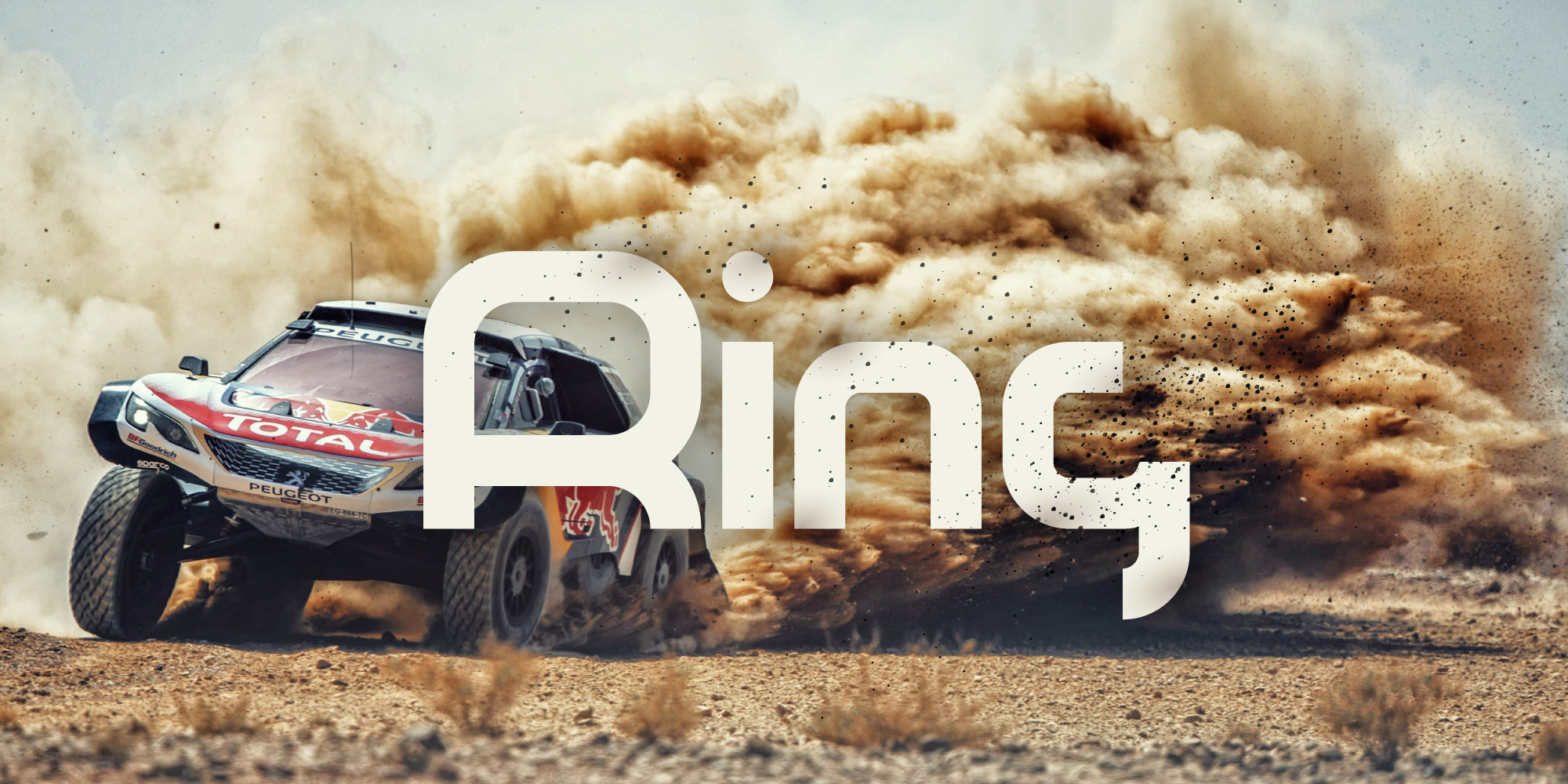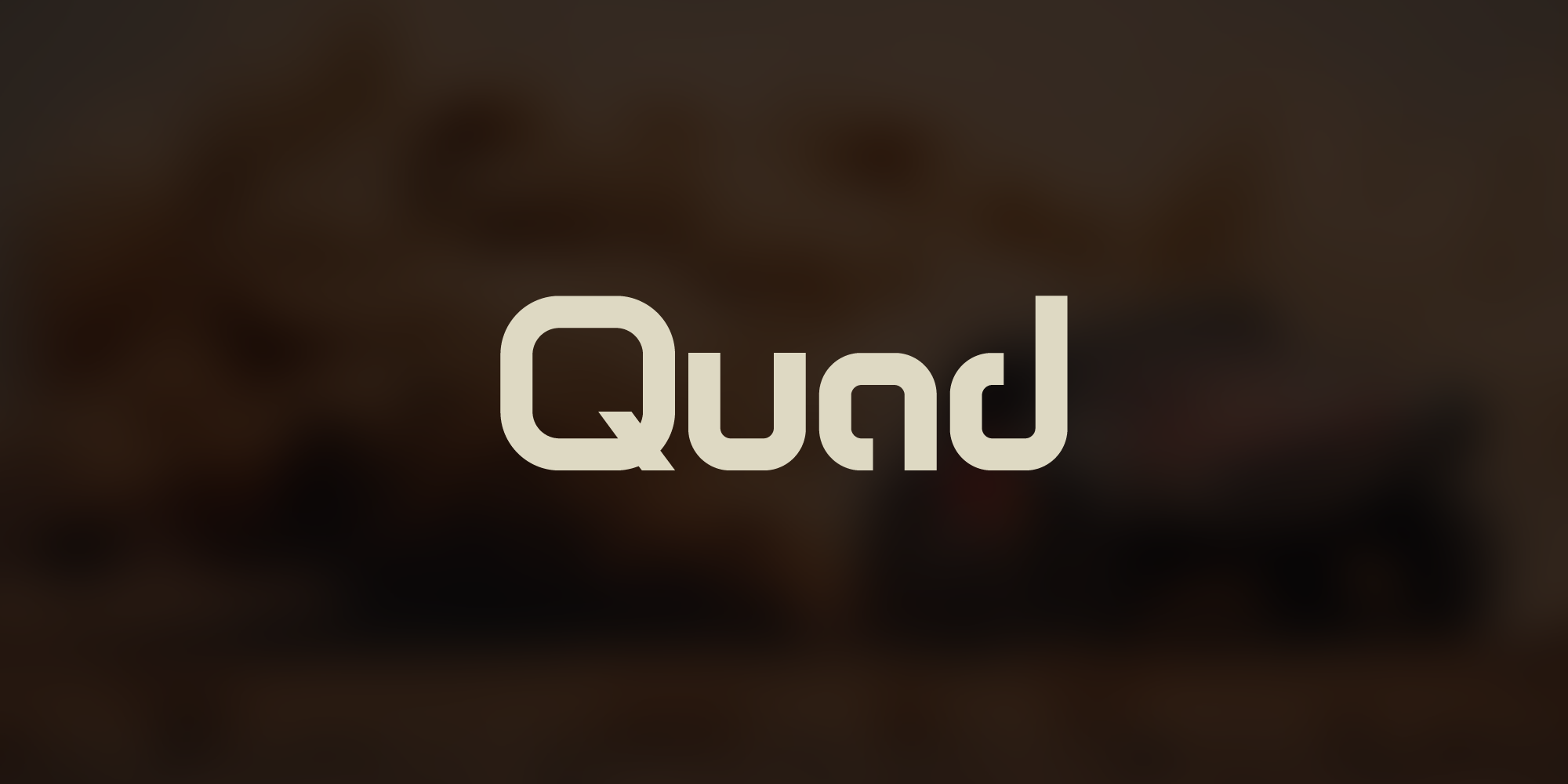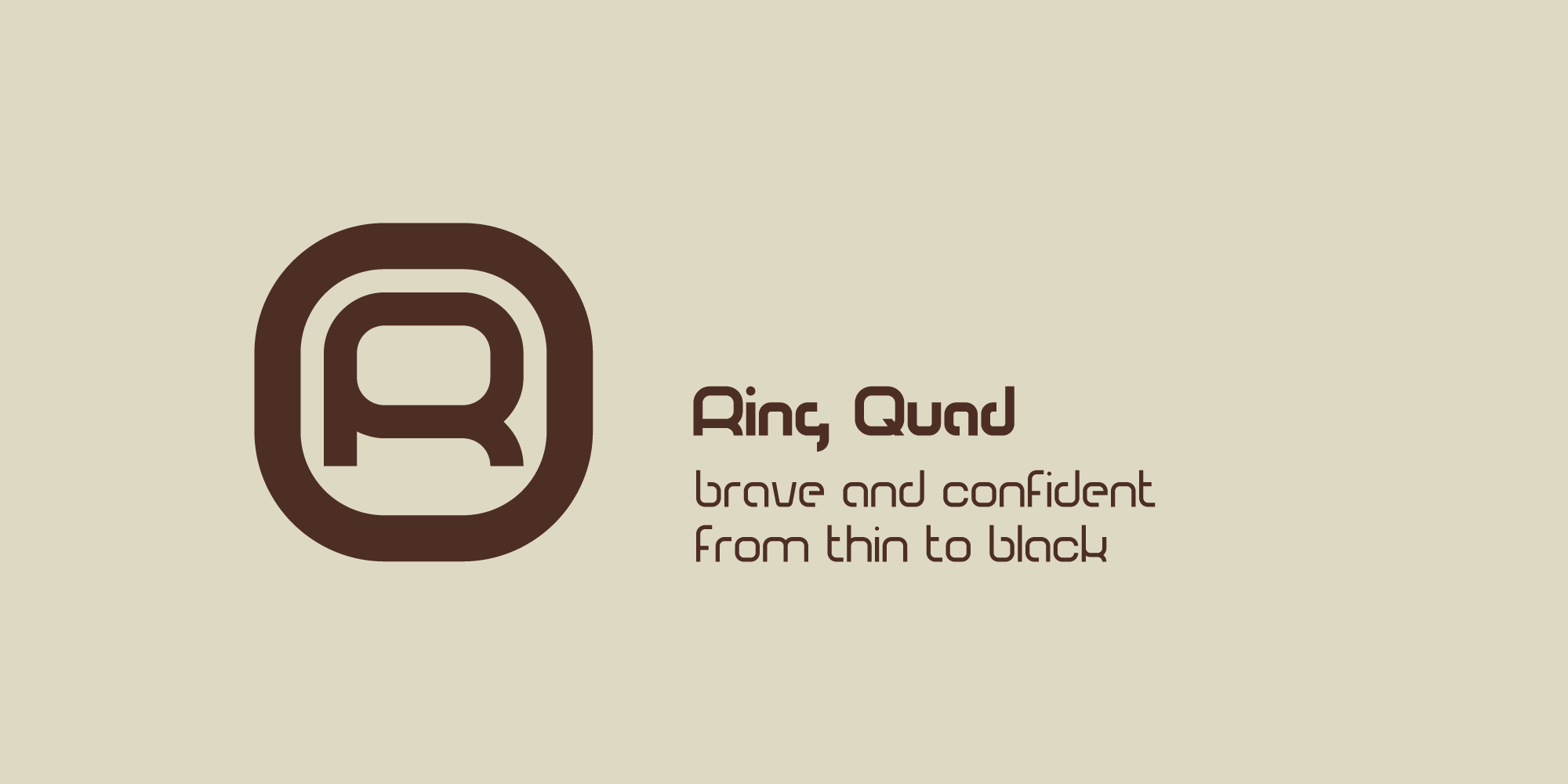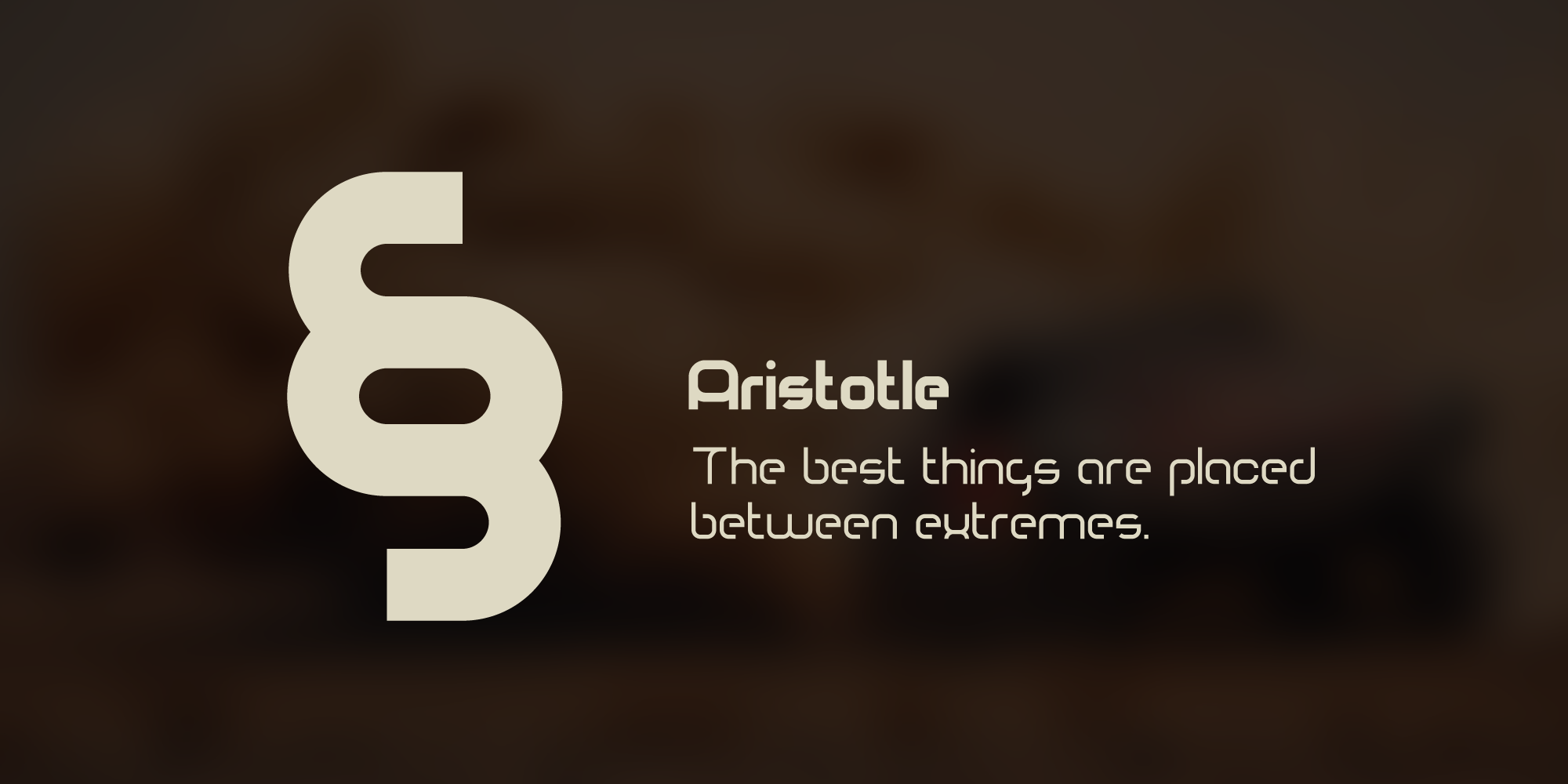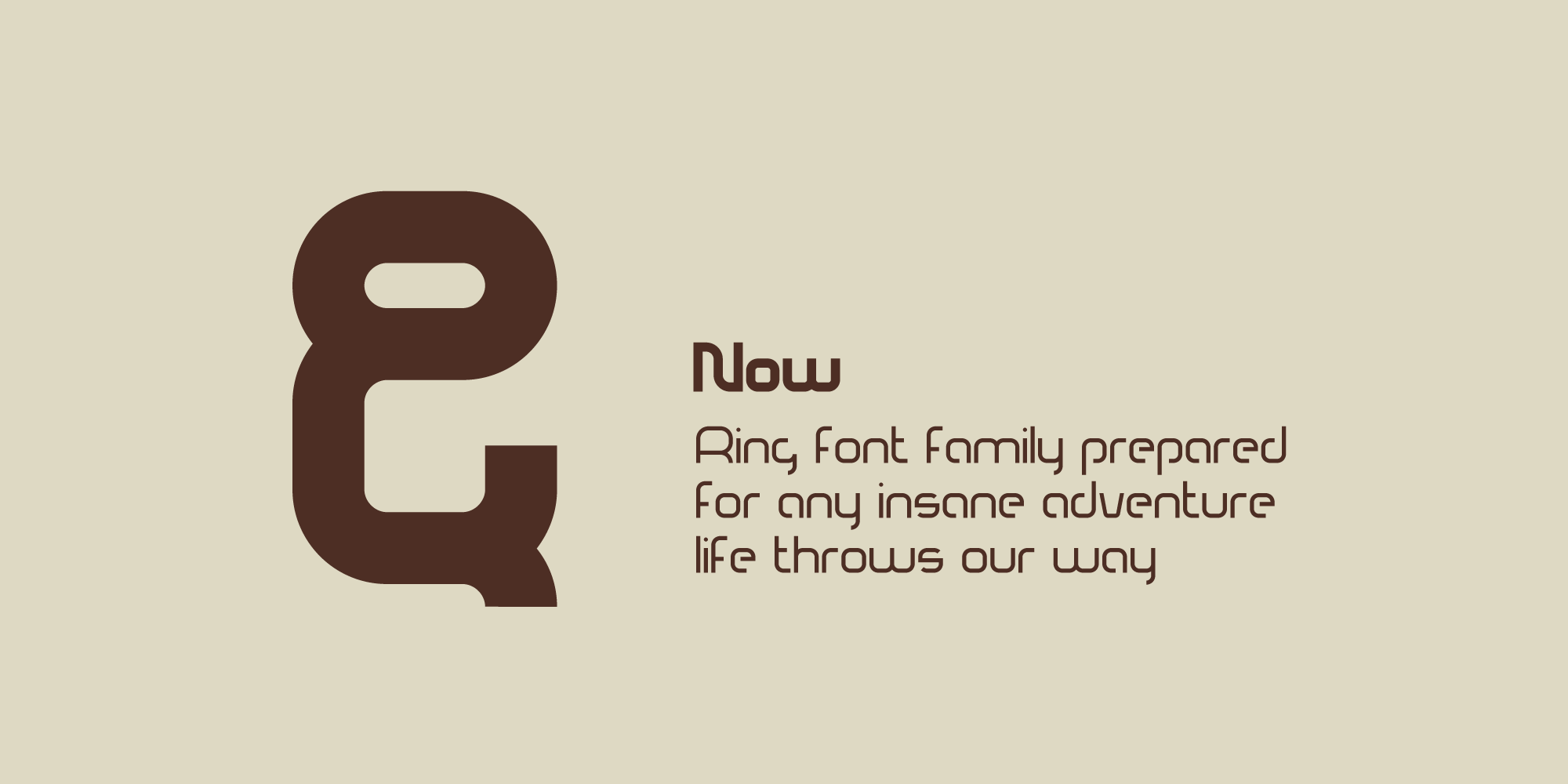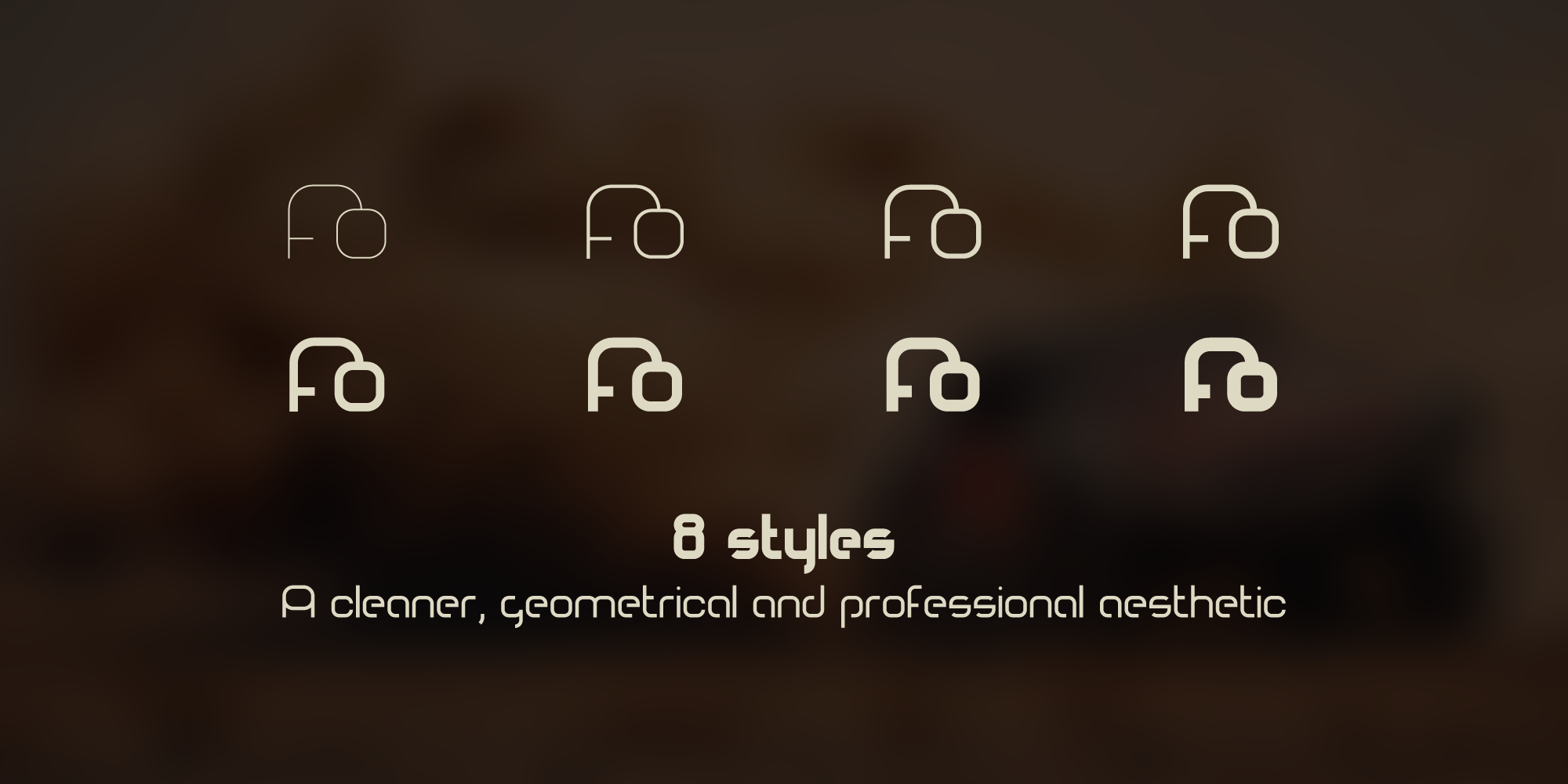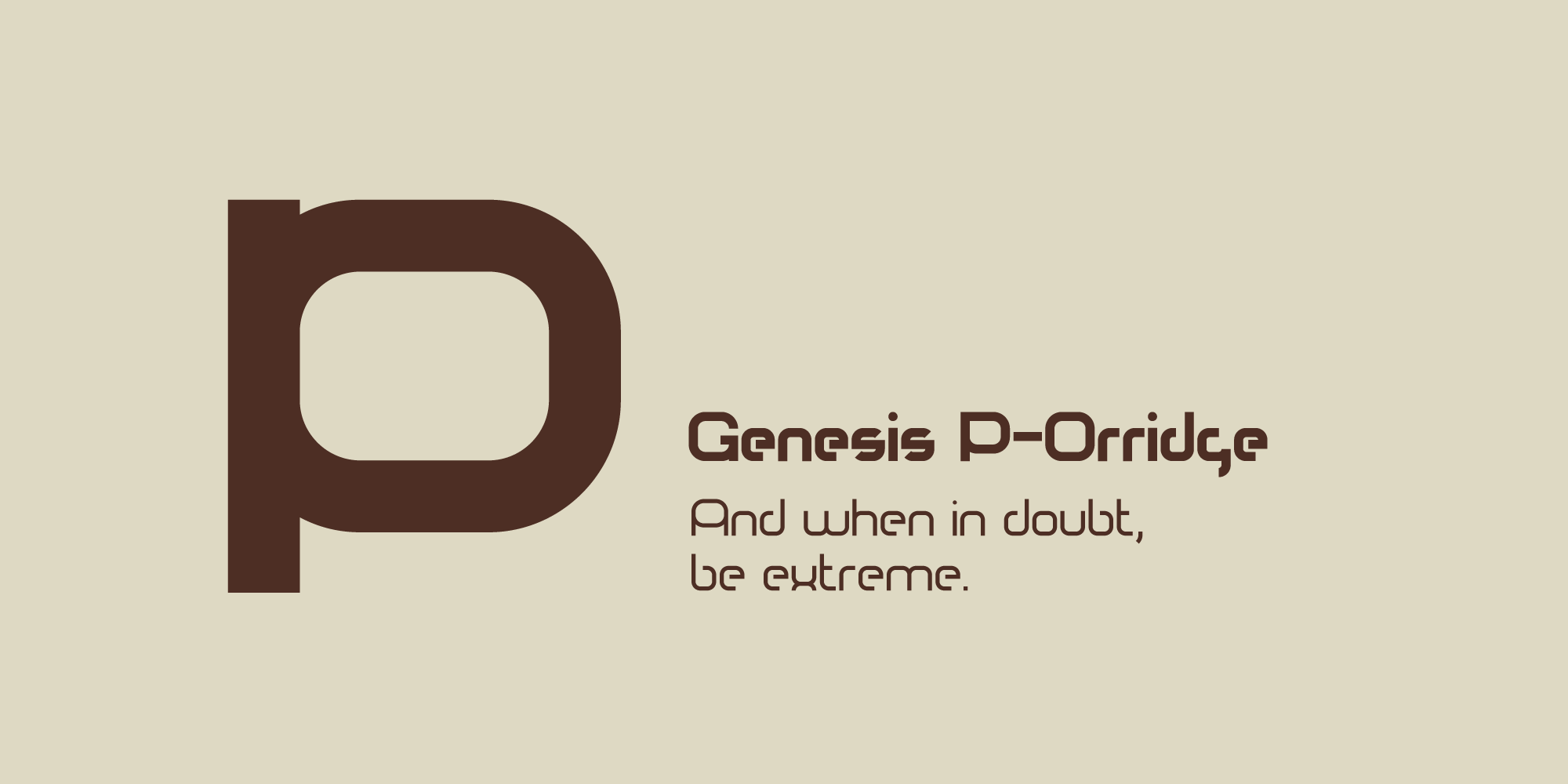
Ring Quad Font
Ring Quad is brave and confident from thin to black. A cleaner, geometrical and professional aesthetic.
Ring Quad is a modern & minimalist font. It’s perfect for branding, logos, quotes, posters, name card, stationary, and every other design that needs a striking typeface.
Now, Ring font family prepared for any insane adventure life throws our way!